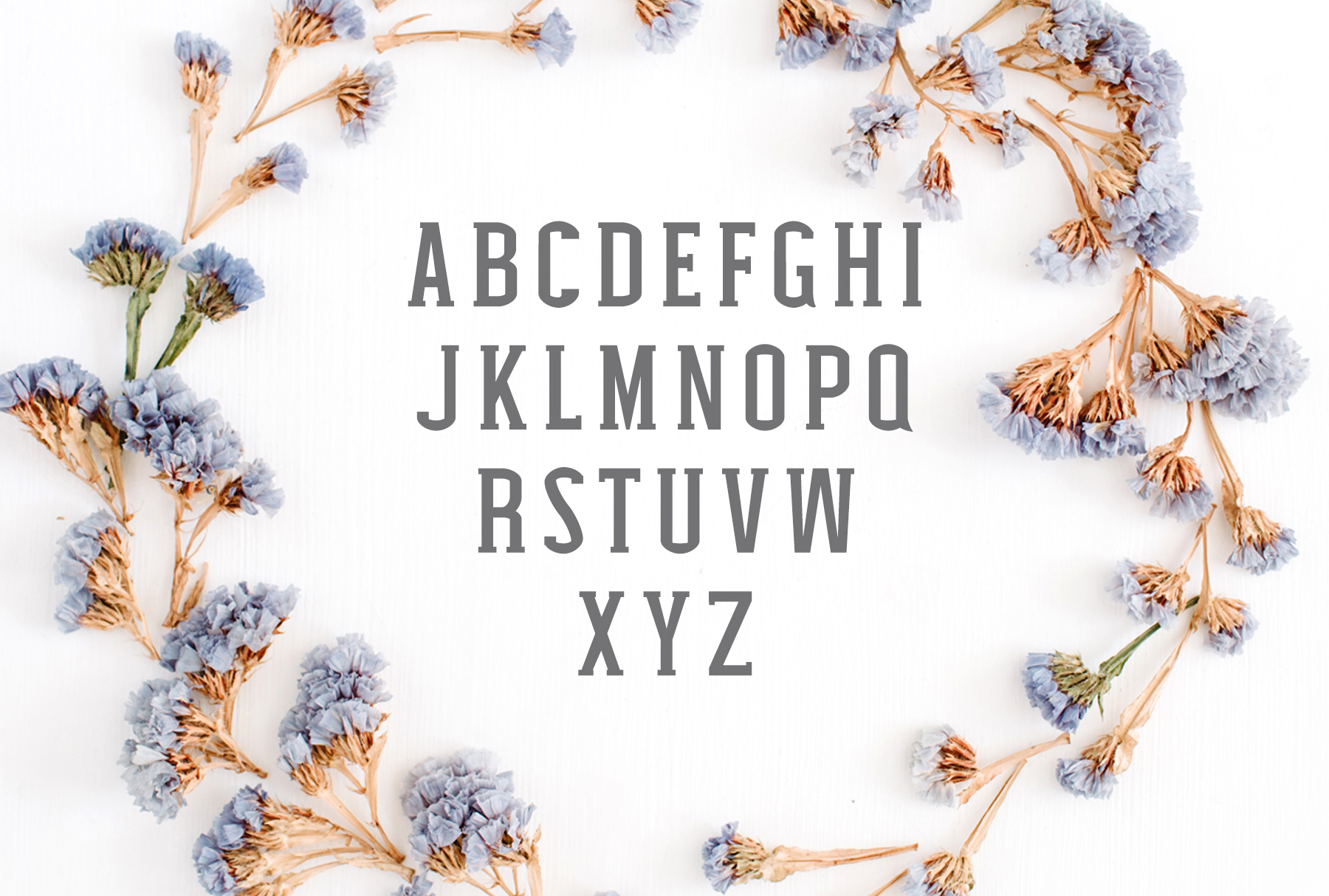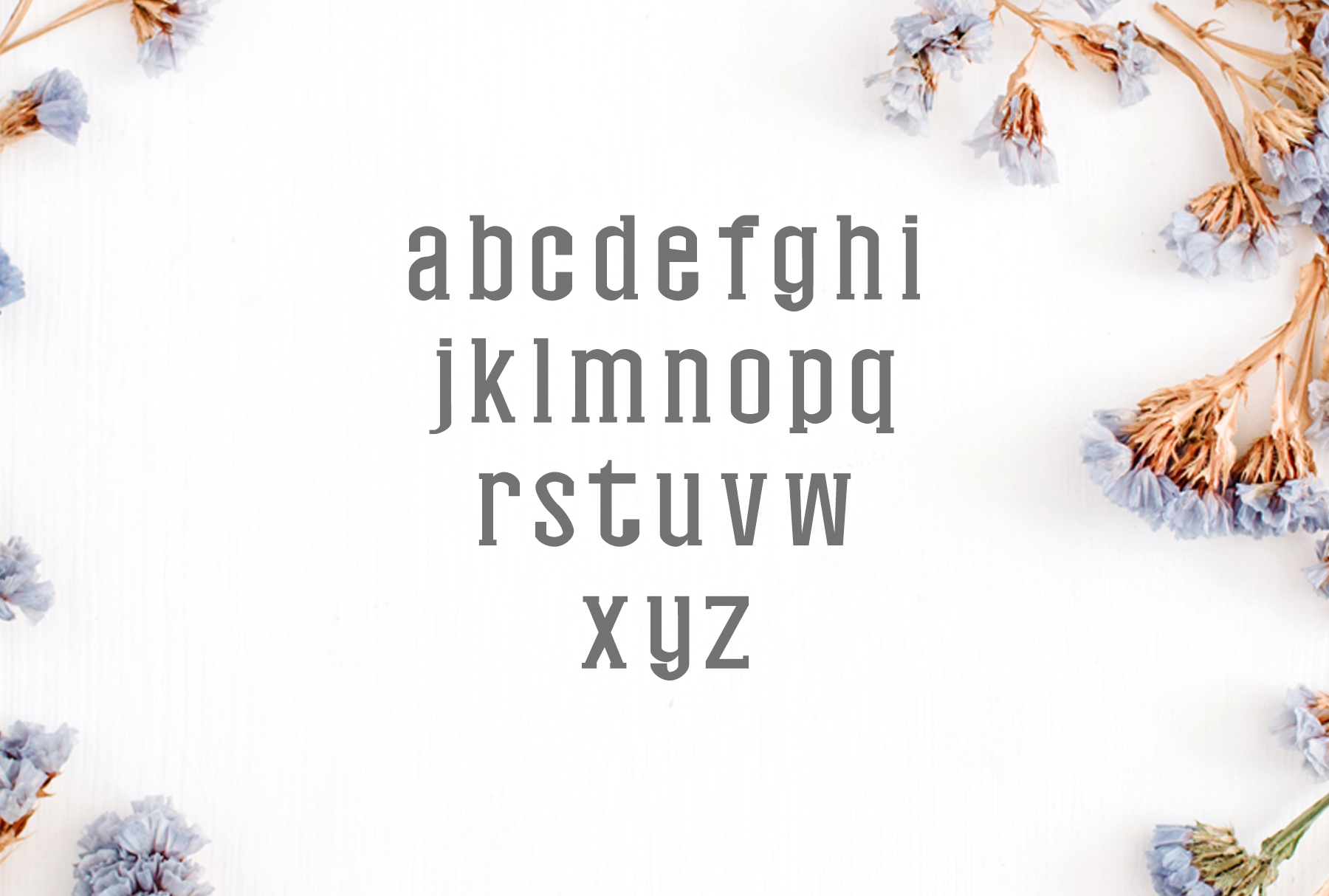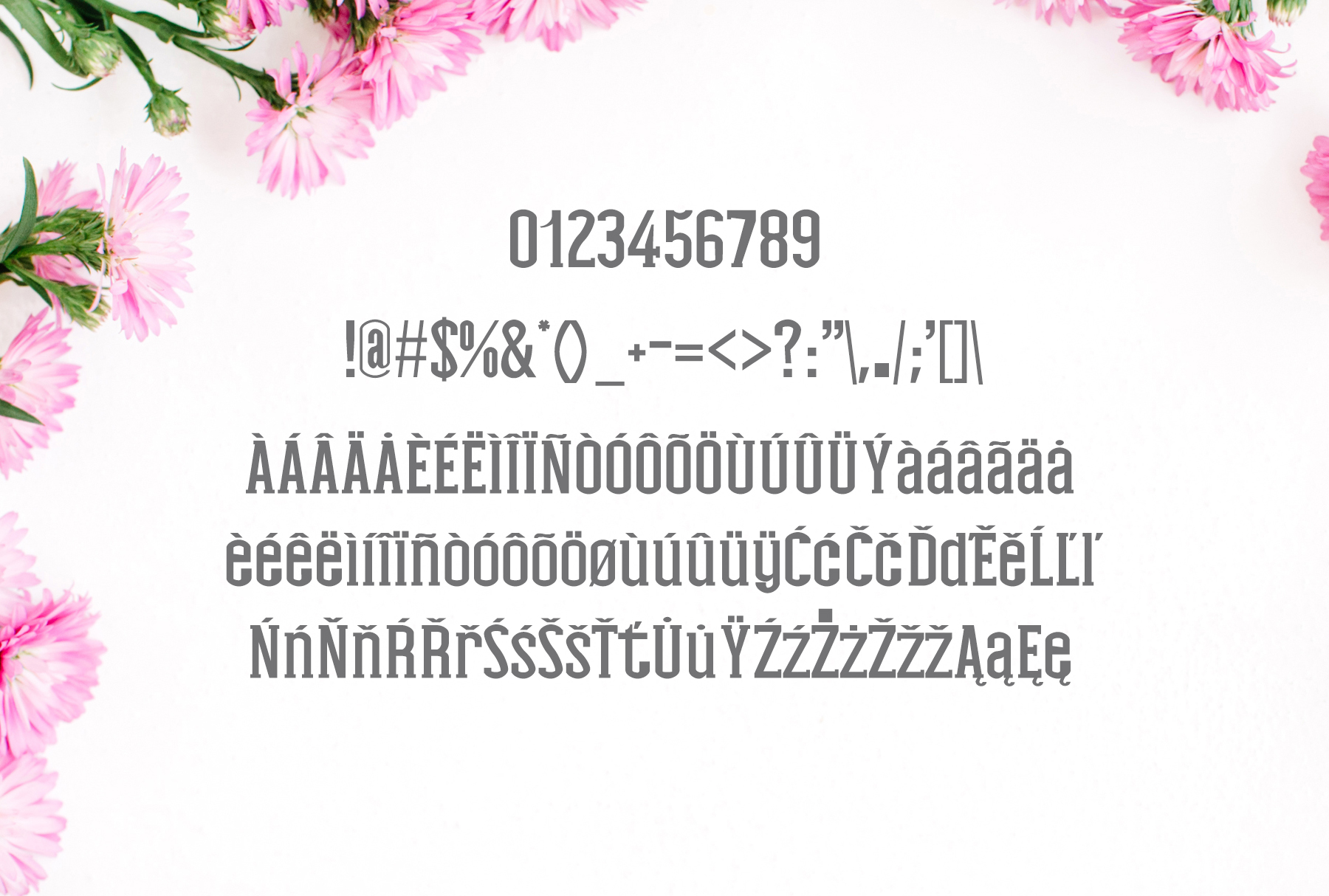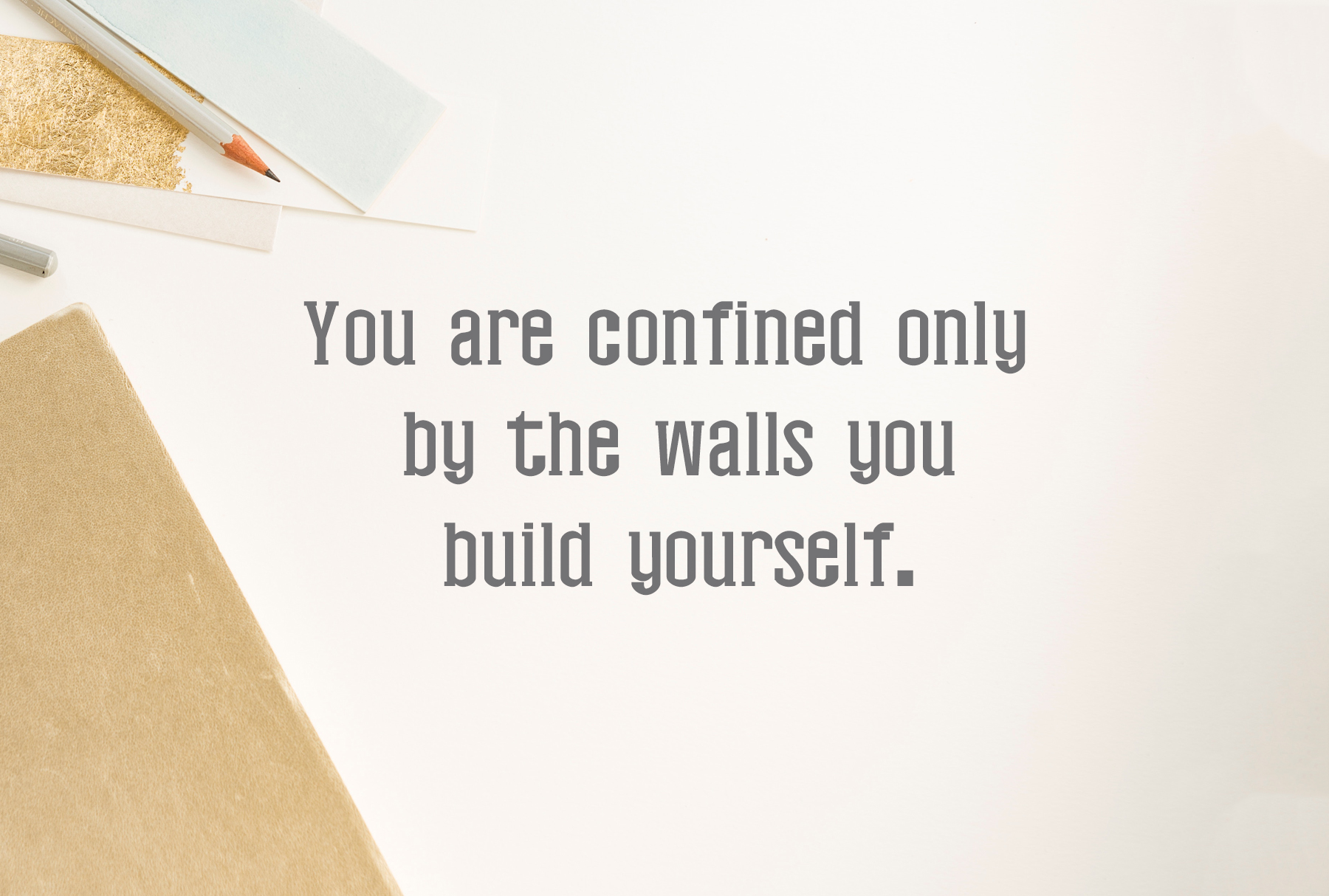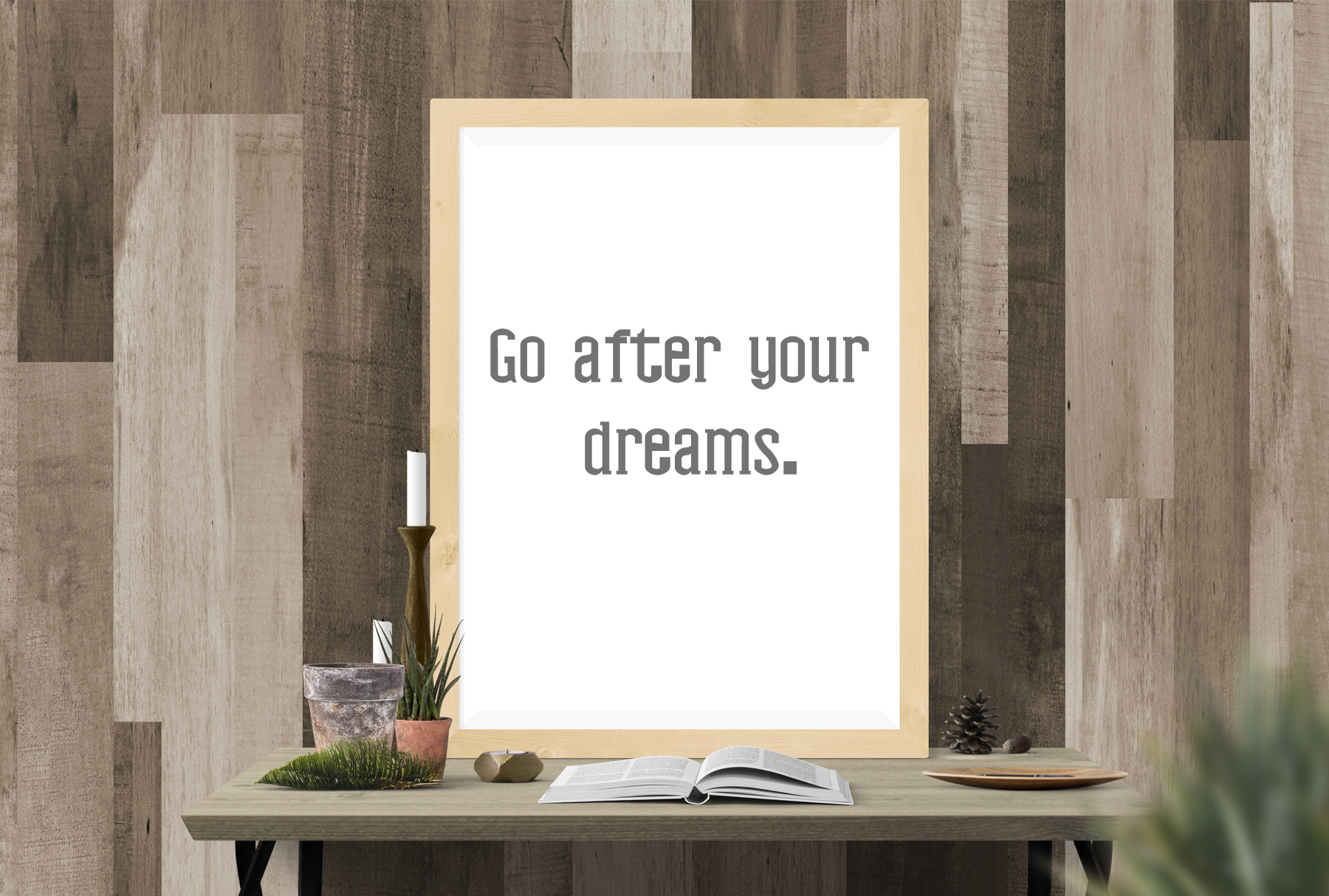
Introduction to Nasya Font
Nasya is a gorgeous modern slab serif font that comes in 4 different weights, giving you the flexibility you need to make your designs impactful and unique.
This font is both feminine and strong, and looks great across a wide range of design styles .
Key Features of Nasya Font